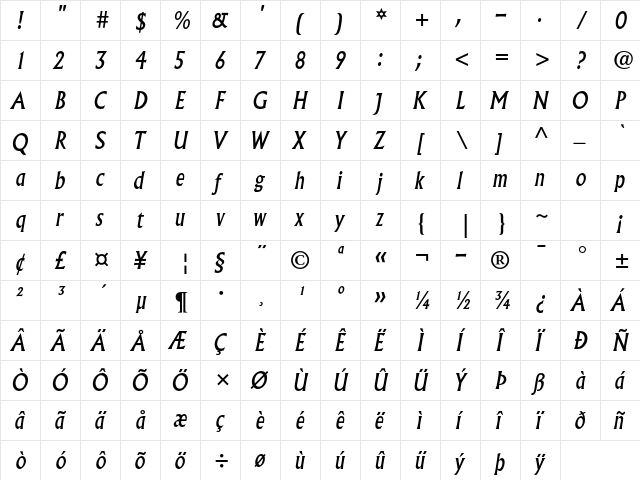
Albertus MT Std Italic Font Preview
Albertus MT Std Italic
Albertus MT Std Italic Font Details
| Designer | Berthold Wolpe |
Design Context for Albertus MT Std Typeface
Albertus MT Std takes a measured approach to typography — its balanced proportions and neutral character make it a reliable workhorse for both digital and print work. Its italic angle brings a sense of urgency and motion to the letterforms.
Pro Tip: Try Albertus MT Std for annotation and caption copy alongside an upright companion — the contrast in angle creates a dynamic but ordered typographic system.